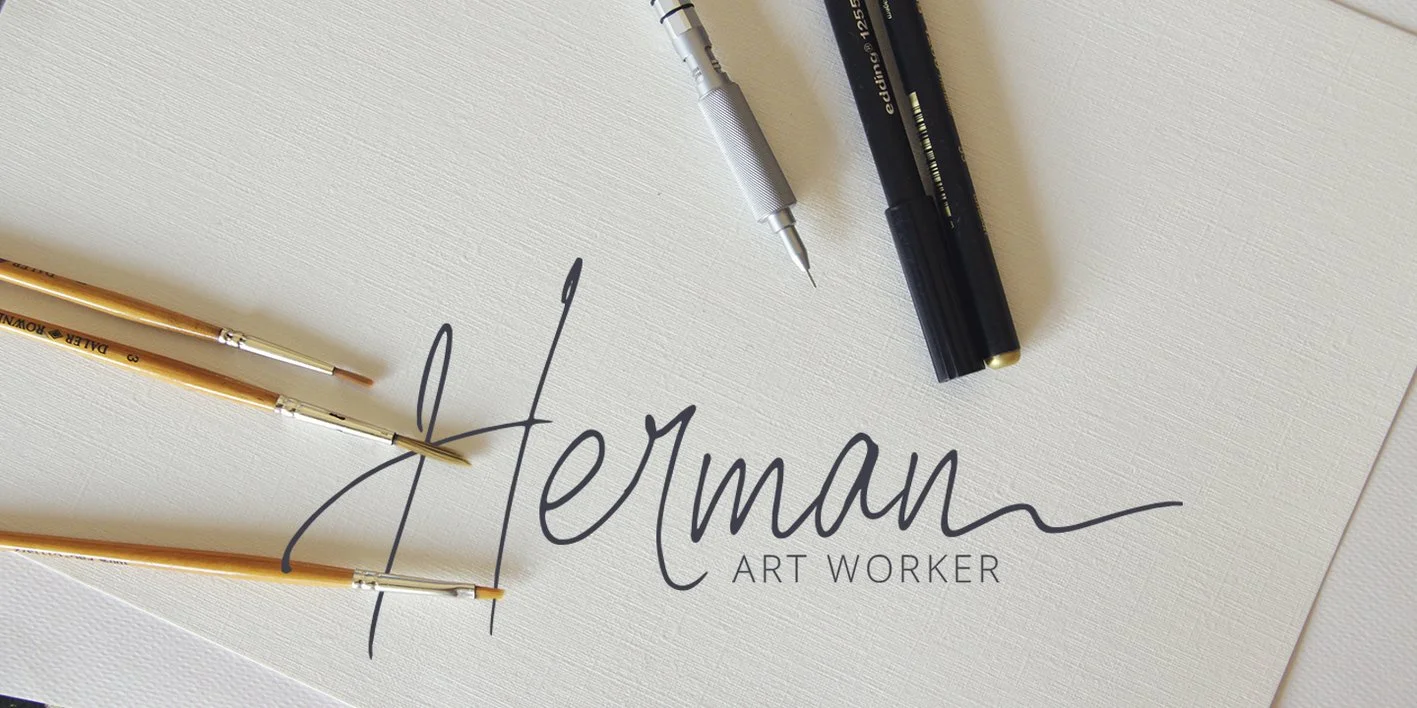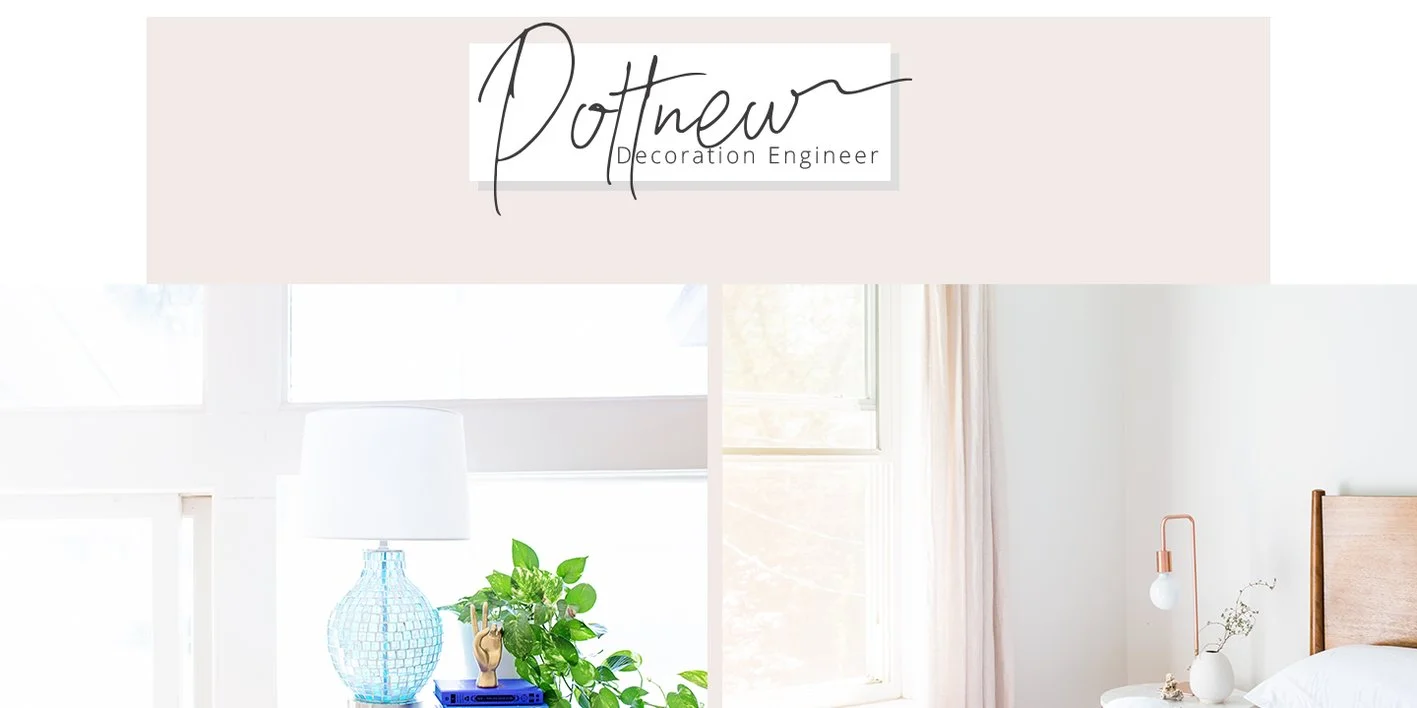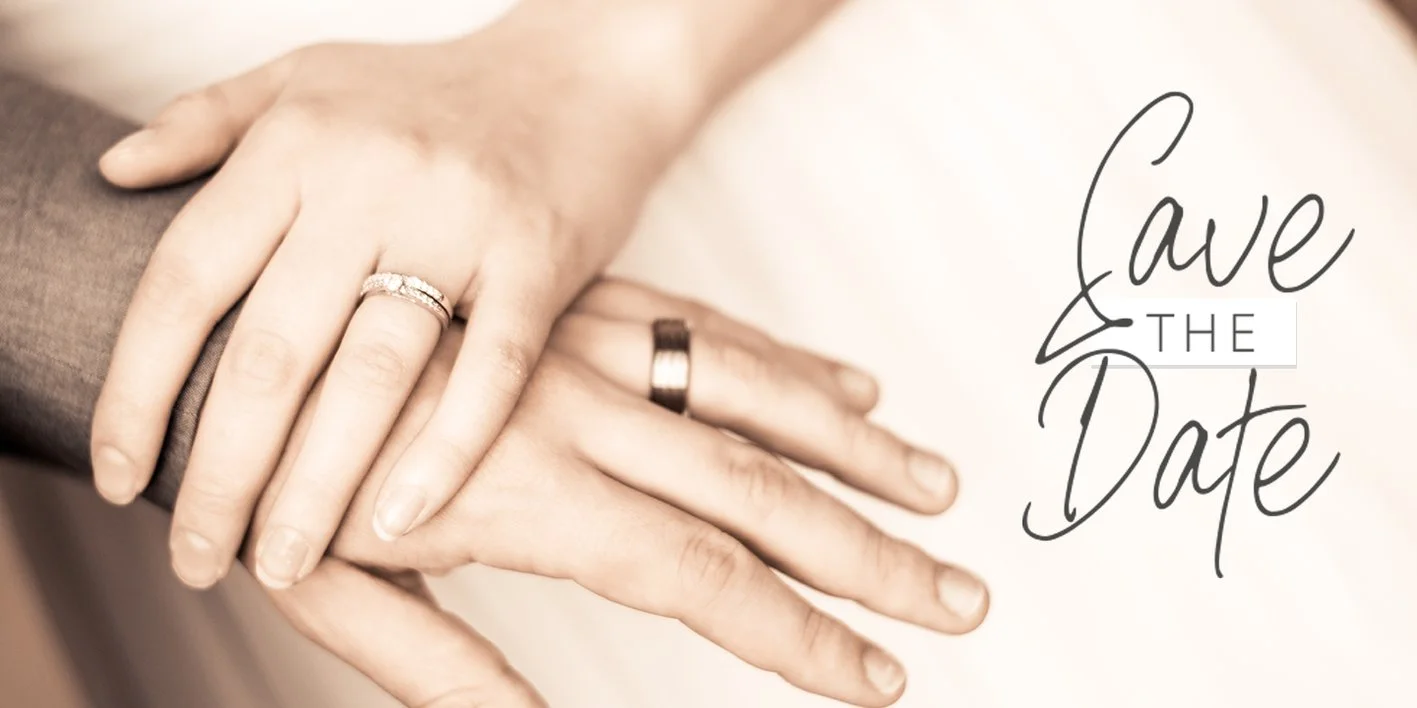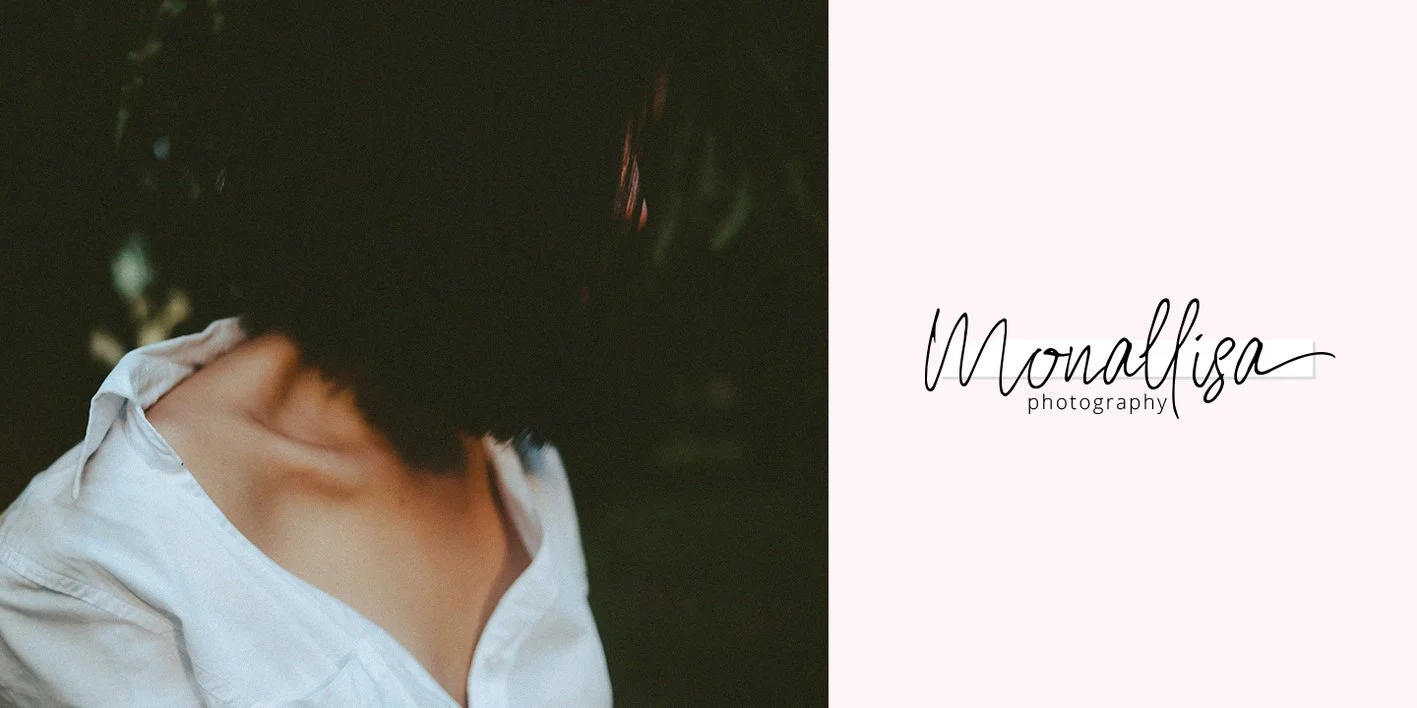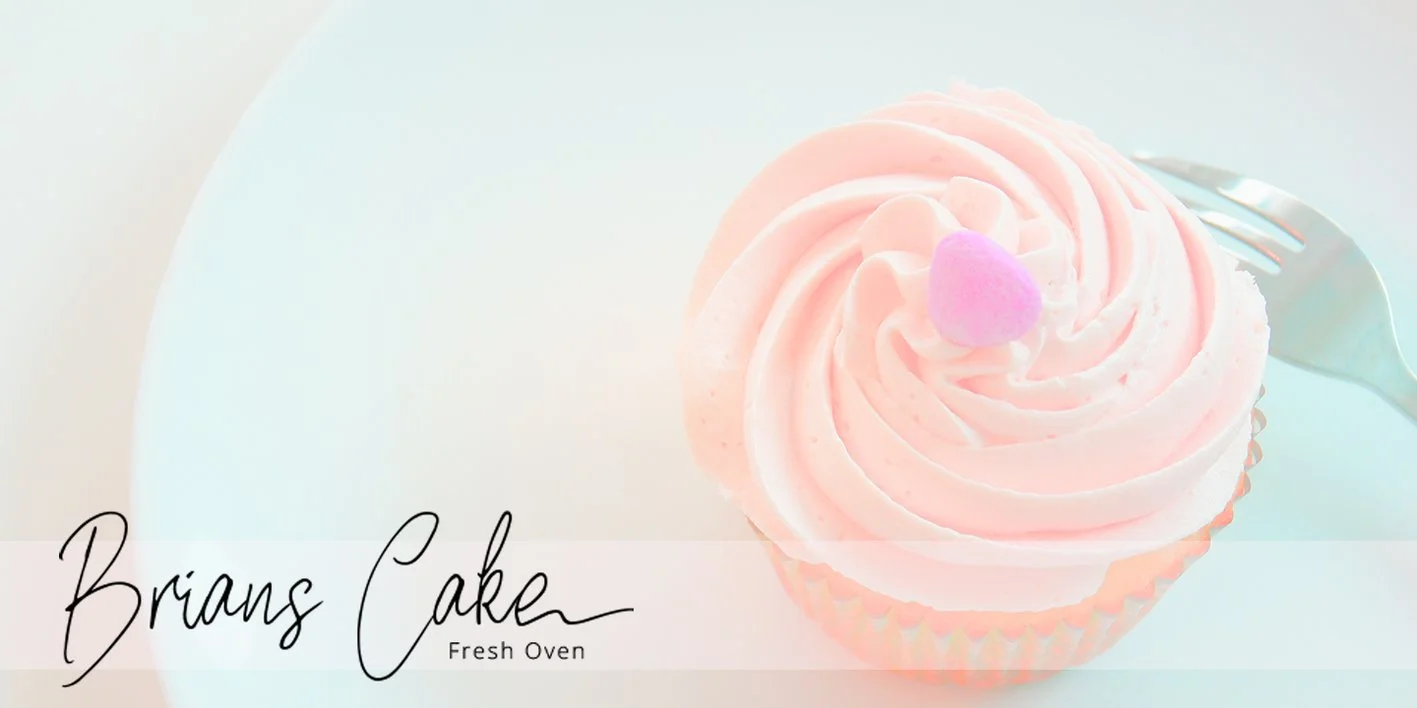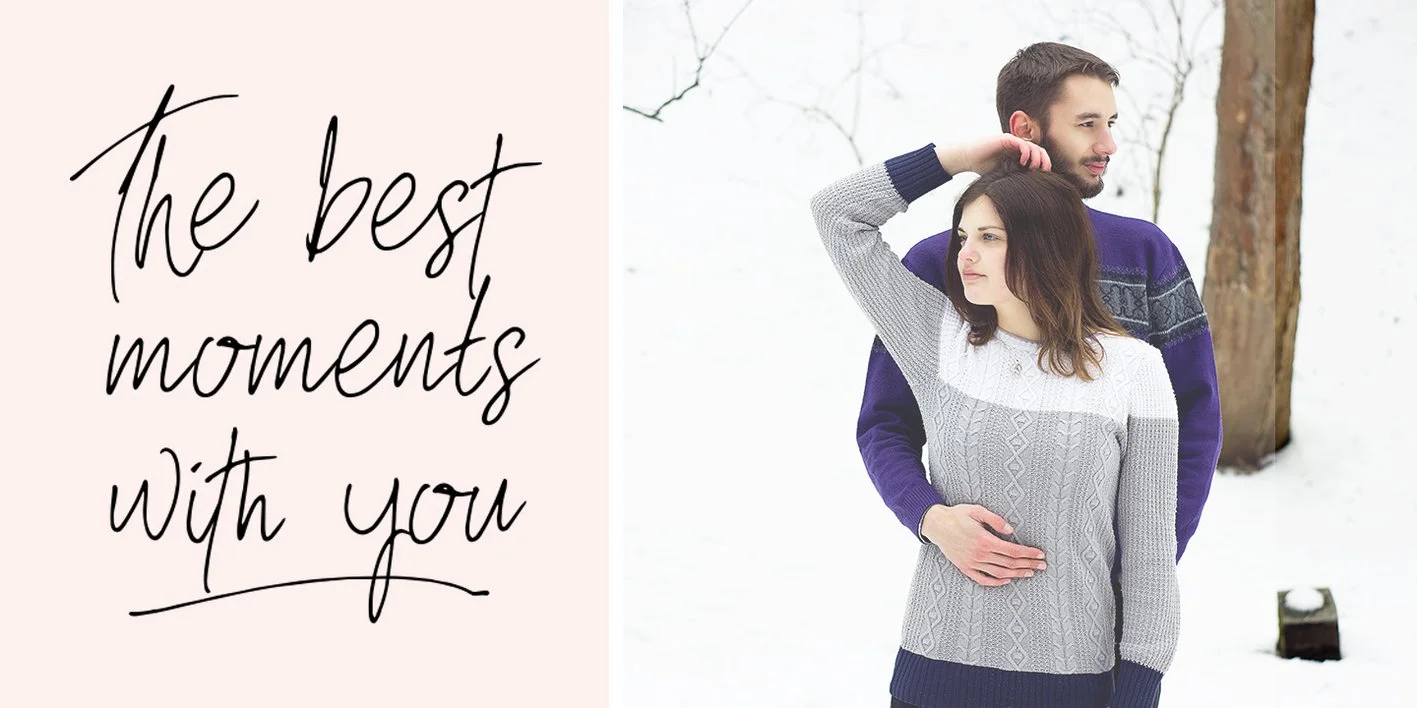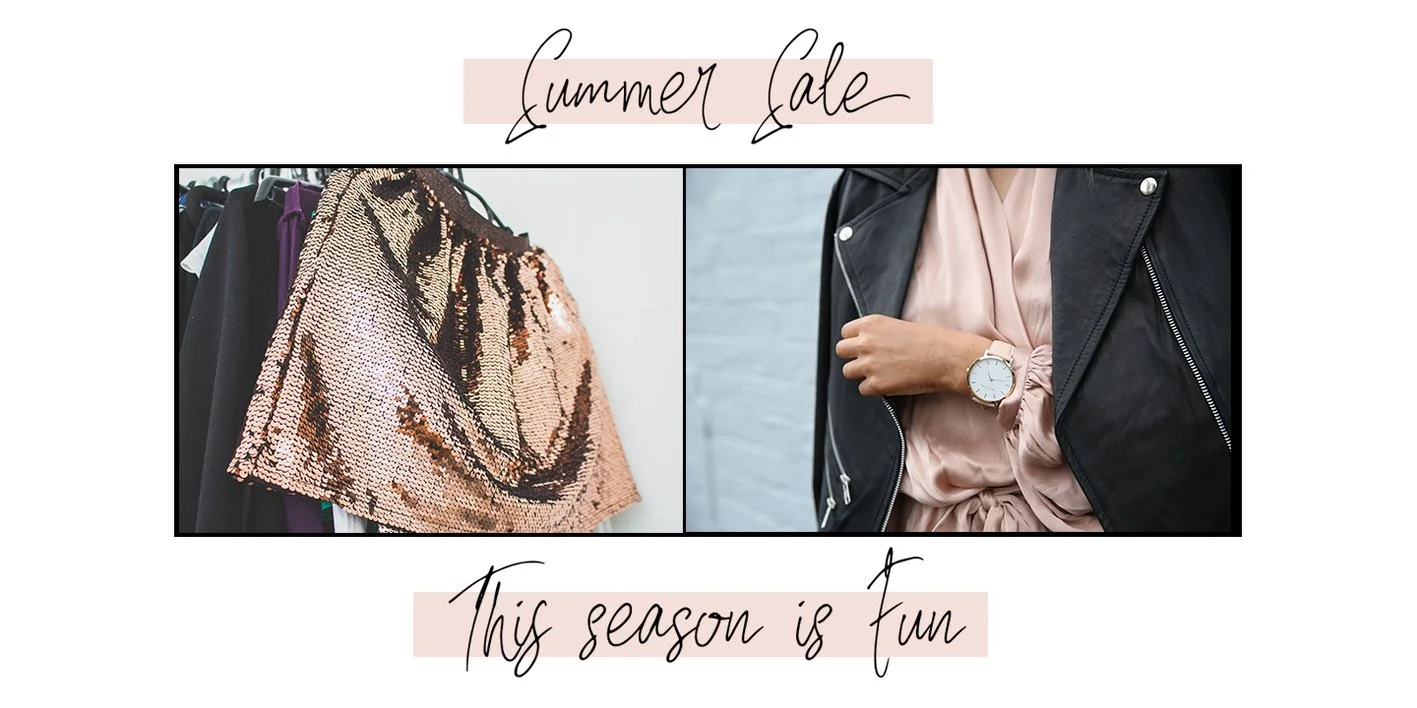
Hostens Signature Font
The Hostens Signature Font excels in welcoming design applications including hospitality brand identities, restaurant logos, hotel signage, service-oriented business cards, guest correspondence, event hosting materials, welcoming portfolios, friendly social media graphics, accommodation branding, and gracious marketing materials. Its hospitable script style makes it perfect for projects requiring warm elegance that communicates welcome and establishes inviting brand positioning with audiences seeking friendly sophistication and genuine hospitality experiences.
What makes the Hostens Signature Font genuinely exciting is its exceptional ability to convey warmth and hospitality through graciously crafted letterforms. The font features flowing, welcoming strokes with friendly flourishes and inviting proportions that create a distinctly hospitable appearance. Each character displays remarkable attention to hospitality detail with warm curves, gracious connections, and welcoming spacing that give text a friendly, hand-lettered quality. The font's hospitable character and inviting rhythm create an atmosphere of genuine welcome while maintaining professional sophistication and trustworthy appeal.
The Hostens Signature Font family typically includes regular weight with comprehensive character sets, featuring uppercase and lowercase letters, numerals, punctuation, and international glyphs. The typeface often incorporates stylistic alternates, contextual ligatures, and welcoming swashes that enhance its signature hospitality. These additional elements provide designers with creative options to customize text appearance and achieve more natural-looking hospitable handwriting that reflects the font's welcoming and friendly character.
This inviting signature font distinguishes itself through its remarkable balance of warmth and professionalism. Unlike cold or distant fonts that lack personal connection, Hostens Signature Font embraces the power of welcoming design to create emotional bonds with audiences. The font's hospitable character makes it essential for hospitality businesses, service providers, and welcoming brands where creating positive first impressions and establishing genuine connections is fundamental to success in competitive service industries.